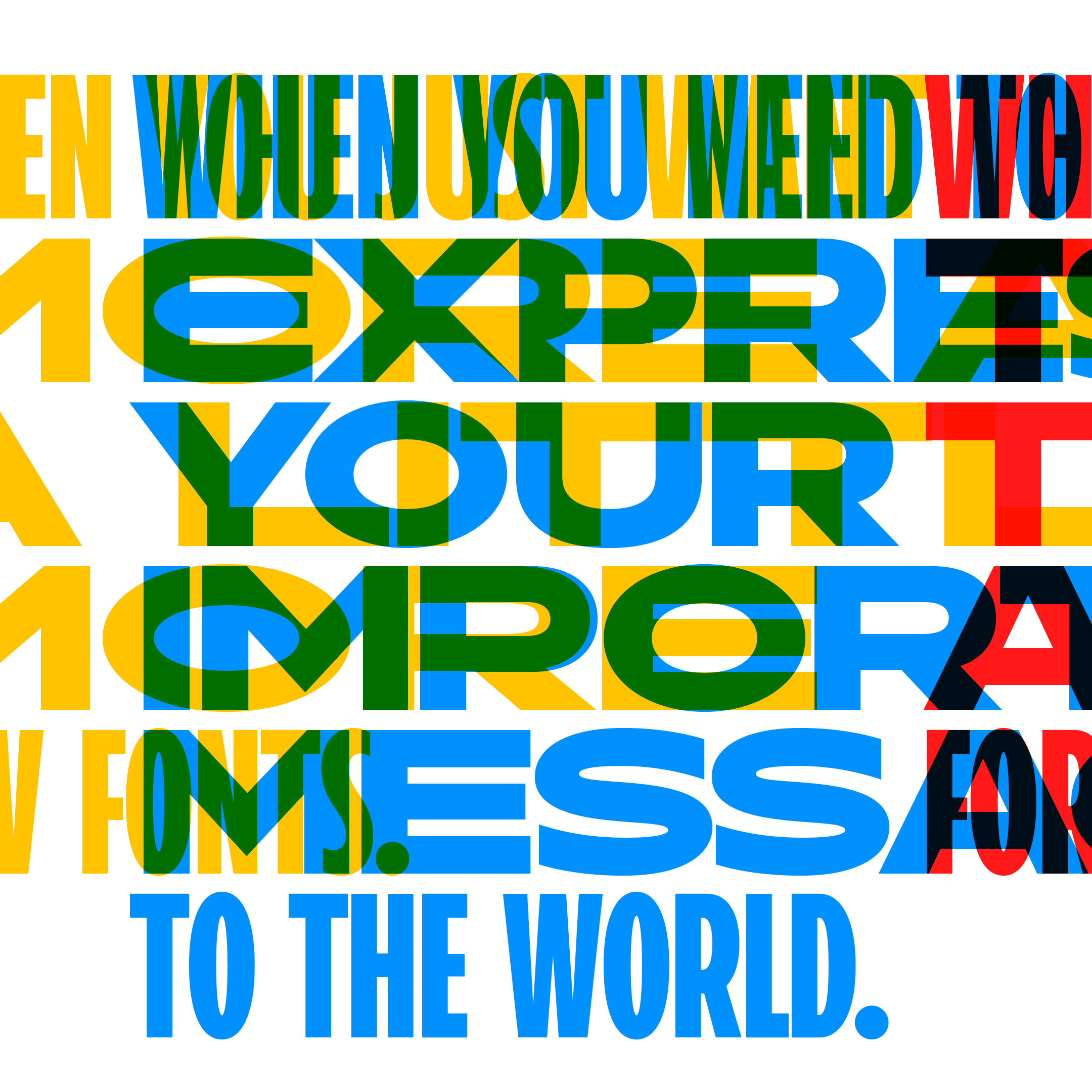
Lipo
To achieve unparalleled design flexibility, the Lipo typeface family was created, deliberately pushing the boundaries of typographic construction to their limits. It is designed as a highly variable system that allows precise responses to a wide range of visual and functional demands—from compact headlines to airy, widely extended layouts.
The family includes 63 styles built along two primary axes—width and weight. It offers nine width variants, smoothly transitioning from extremely narrow Compressed to significantly expanded Extended. These proportional differences enable designers to work with text rhythm and efficiently use space across various media. The width axis is complemented by seven weight levels, ranging from delicate Thin to strong Bold, providing sufficient contrast for the information hierarchy and expressive typographic articulation.
The extensive character set includes extended Latin, extended Cyrillic, and Greek scripts. This makes Lipo suitable for multilingual projects and international communication without compromising visual consistency.
A wide range of OpenType features, including stylistic sets and alternate characters, allows for fine-tuning the character of the text.